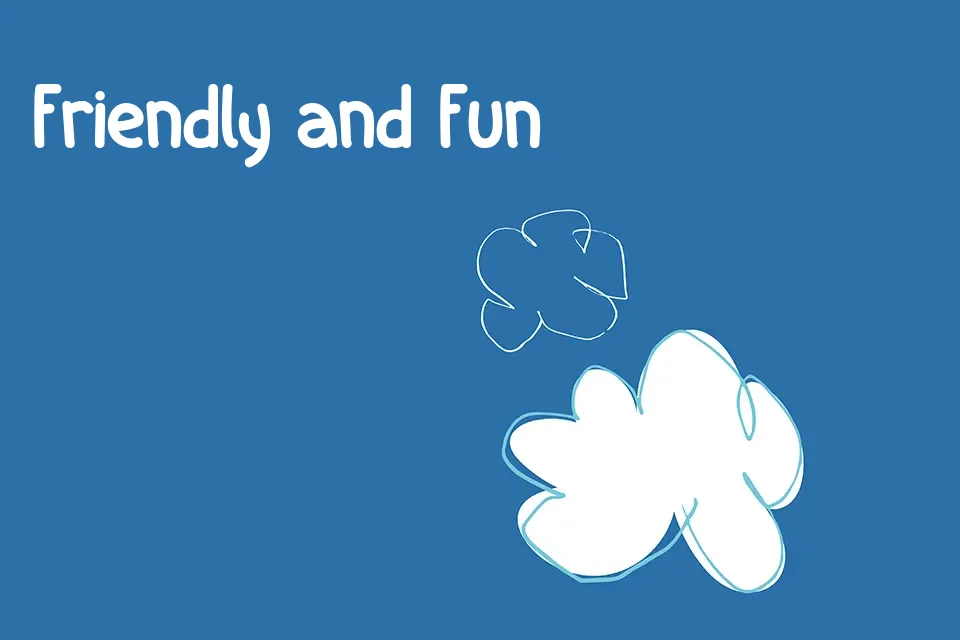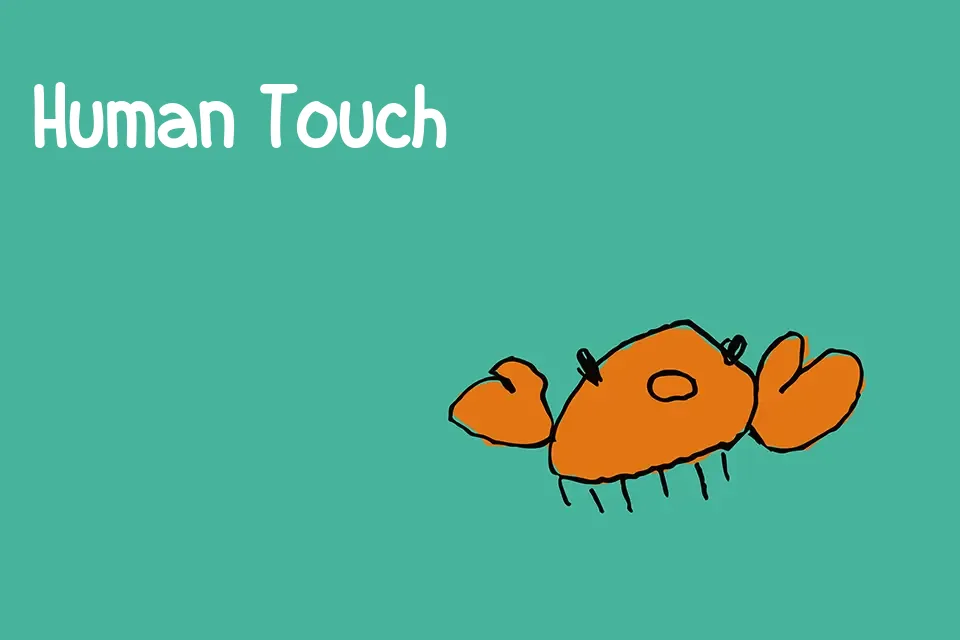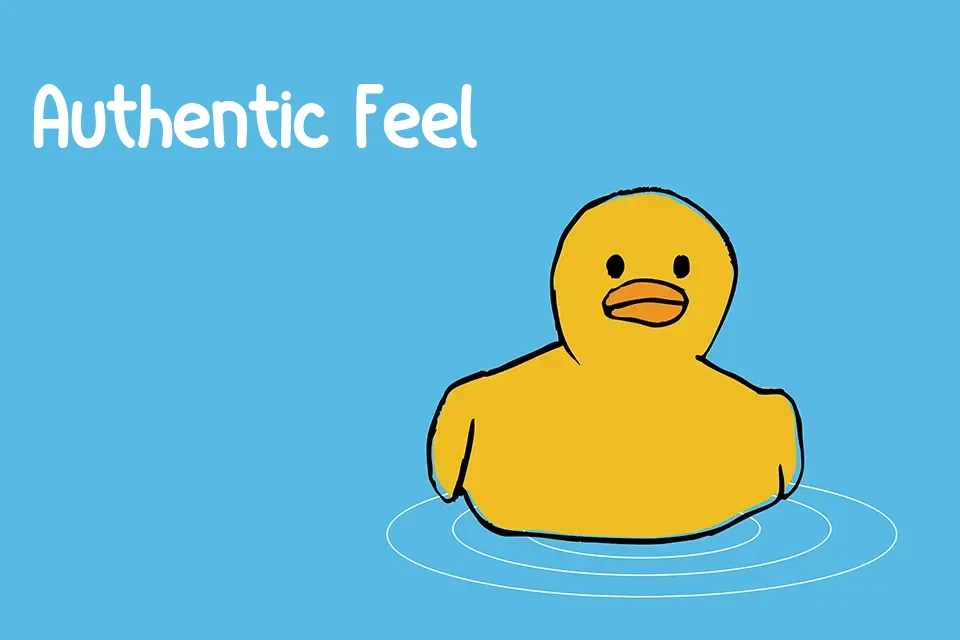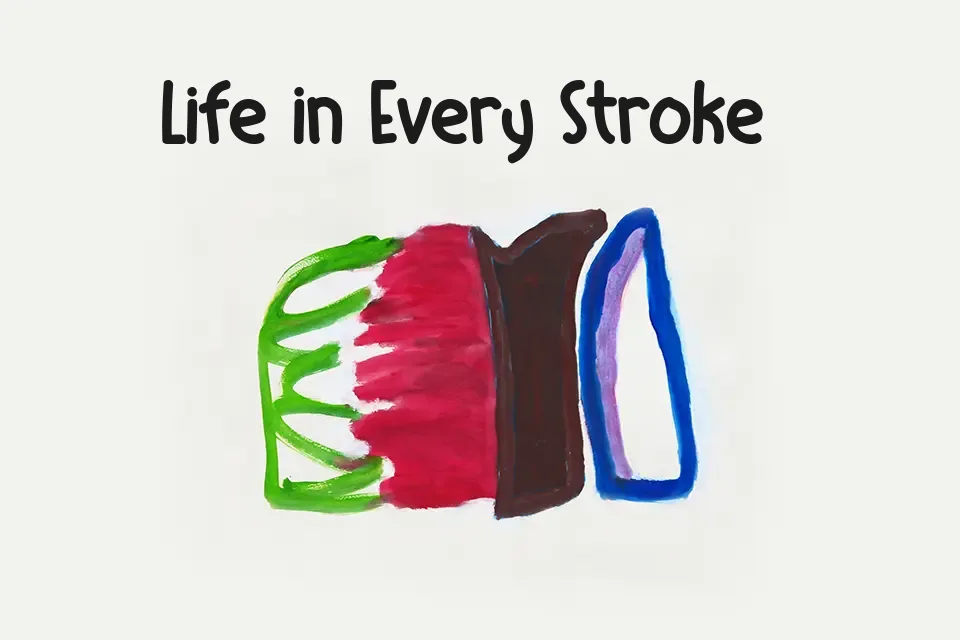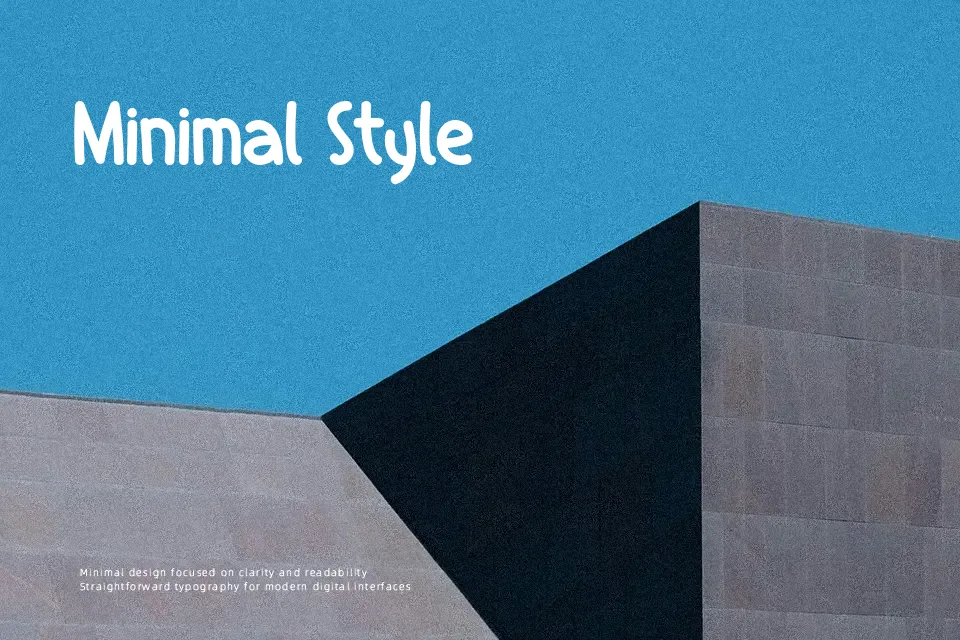
Relayfun Font
Relayfun Font immediately establishes a cheerful tone through its bouncy, irregular baseline and casual comic proportions. The letterforms carry a hand-drawn aesthetic with thick strokes and smoothly rounded terminals that give the design an energetic rhythm. Open spacing keeps the characters distinct, making the typeface highly legible in medium to large display contexts like children’s apparel, toy packaging, or informal posters. The generous spacing helps maintain clarity in larger headlines without feeling rigid. However, the varying character heights reduce comfort during extended reading, making it less suitable for long paragraphs. Its playful details become distracting at very small sizes, meaning this design performs best when given plenty of room to breathe.
children’s book covers, toy brand packaging, casual event posters, lively social media graphics
long paragraph text, corporate reports, small interface labels, dense editorial layouts
Perfect for headline, kids, and packaging, with a cute and comic style.